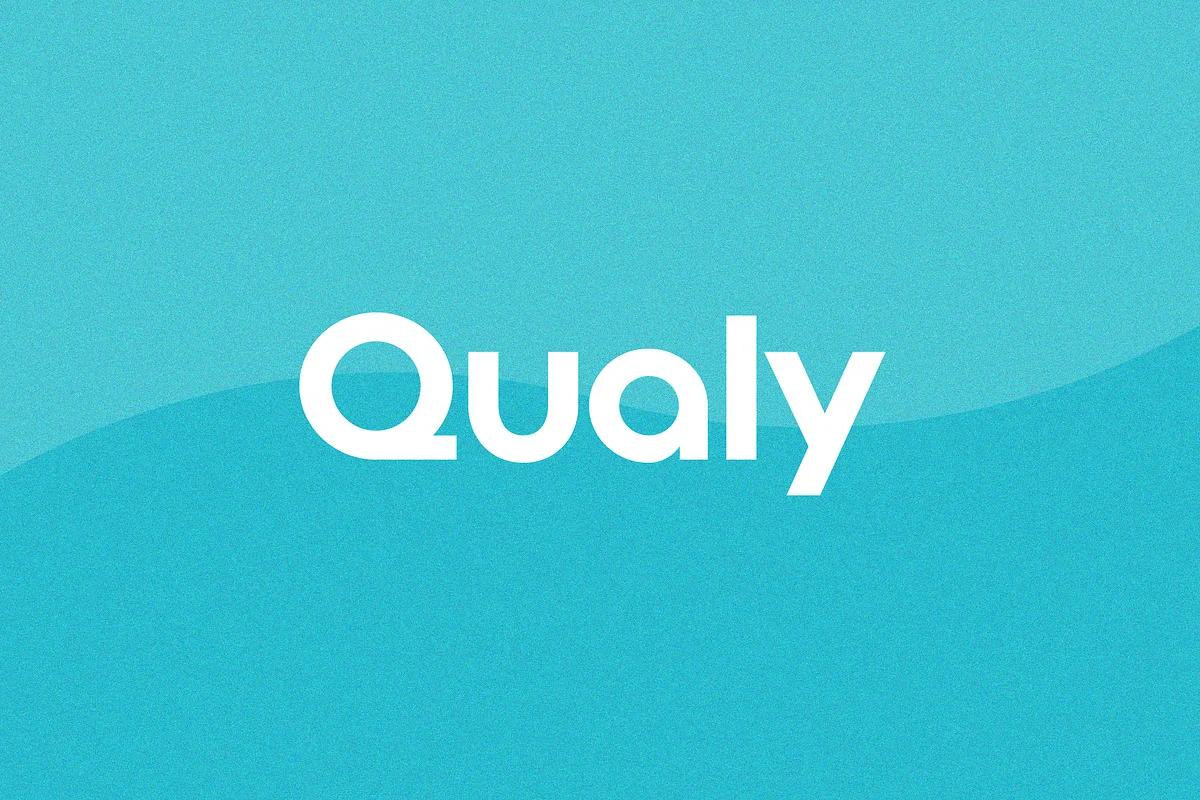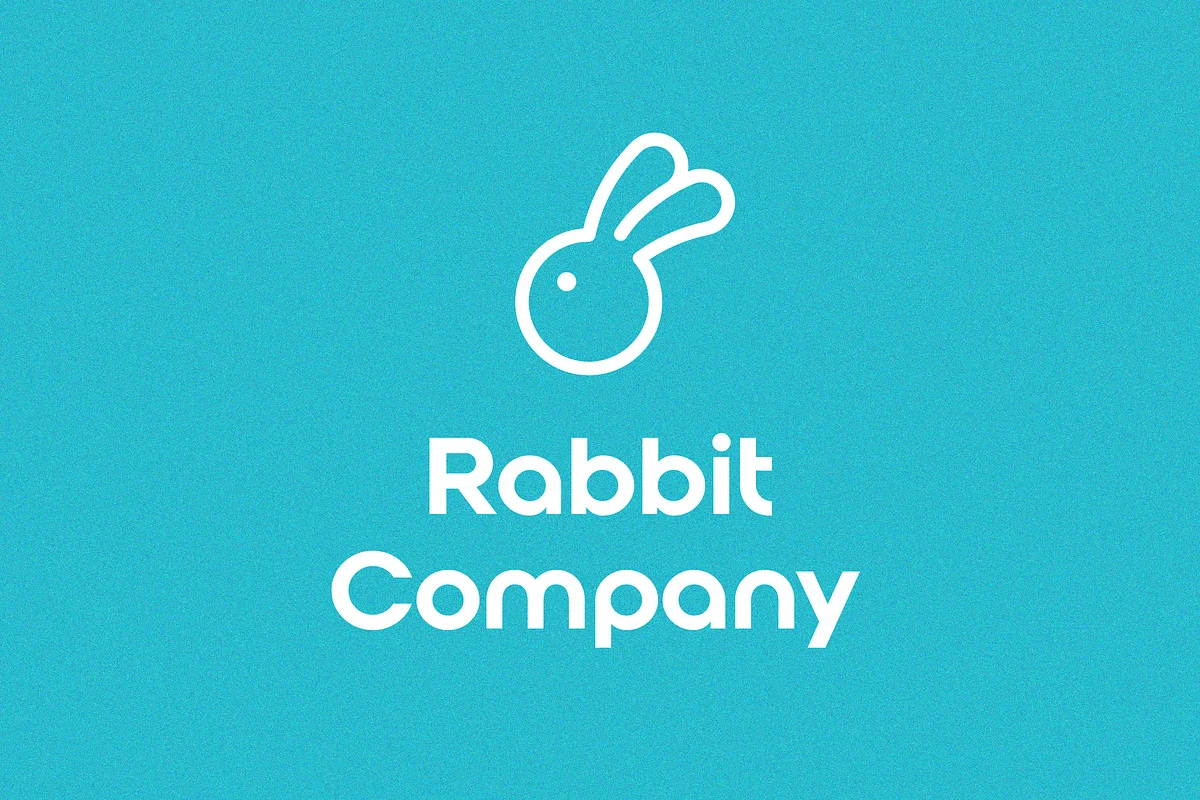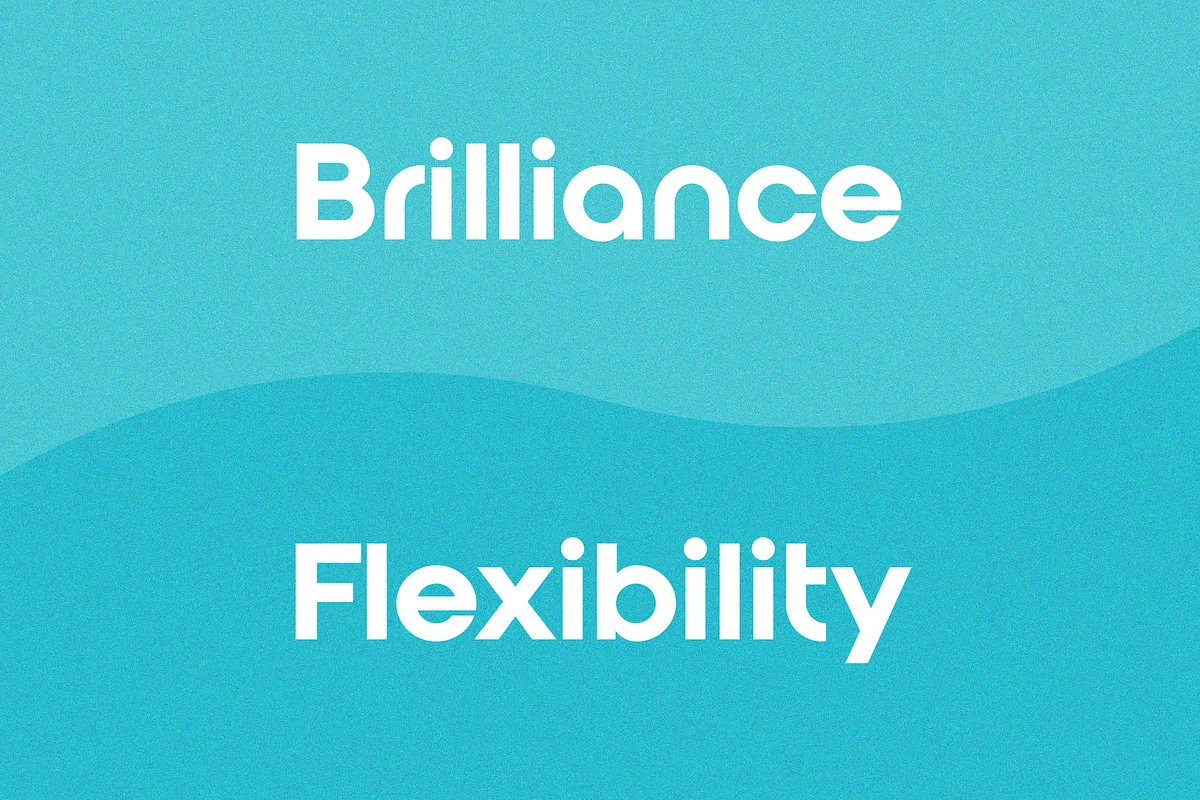
Qualy is a unique typeface designed specifically for creating impactful logos and branding elements. While not suitable for lengthy text, its character set boasts 54 punctuation marks and 199 Latin diacritics, supporting over 66 languages.